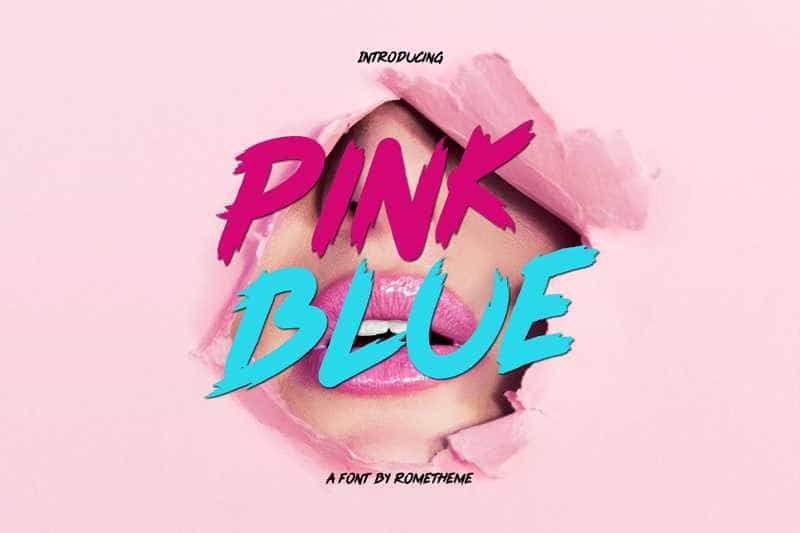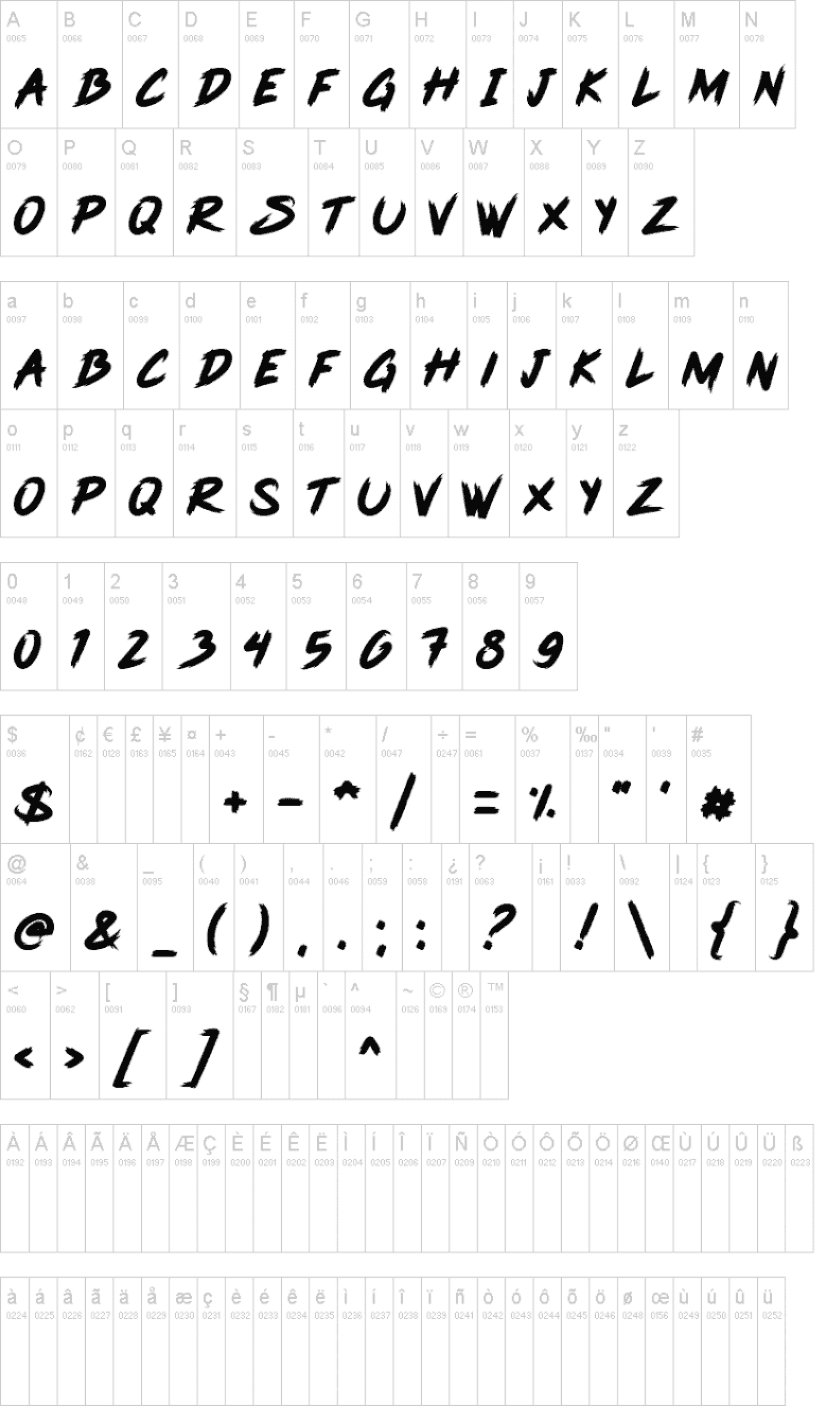
Discover Pink Blue Font Free, part of the Brush collection—a versatile and unique font perfect for adding a personal touch to your projects. Download it for free and enjoy crafting designs with style, from invitations to social media posts. This font is available exclusively for personal use, giving you the freedom to create without limits. Unlock your creativity with Pink Blue Font Free today!
Pink Blue by Rometheme: Brush fonts are a stunning creation from Rometheme which is available for free download for personal use only. The basics include uppercase letters and a few special characters are also available in the free version.